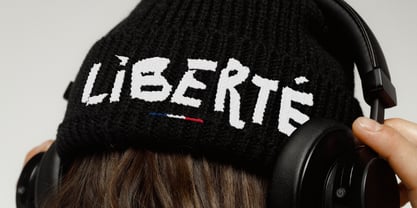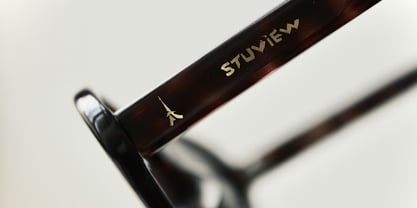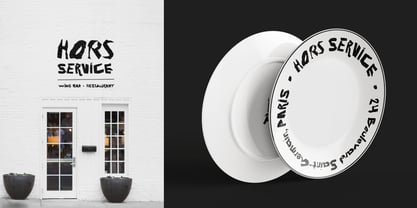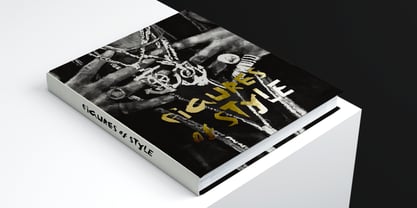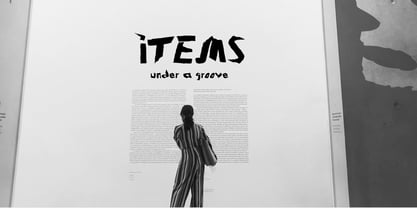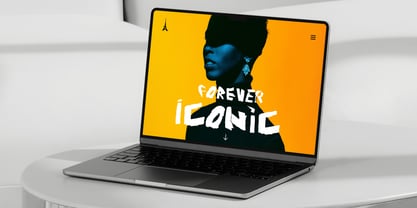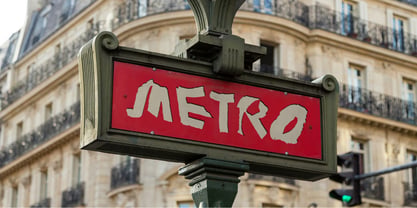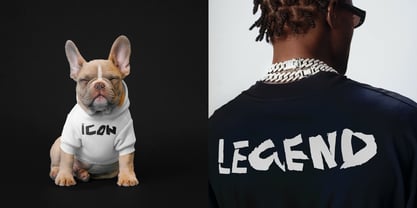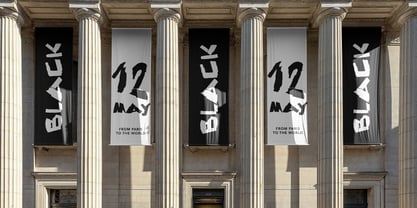
Remix de Paris
Remix de Paris, a bold statement font designed to honor 50 years of hip-hop culture.
Like Hip-Hop, Remix de Paris typeface was born out from sheer grit and determination. Designed using artisanal collage technique, each of the 249 glyphs brings together unexpected elements to form edgy, expressive shapes. With fragments of grunge aesthetics, ripped edges, and raw energy, Remix de Paris is perfect for those seeking a font that captures the essence of self-expression and rebellion.
Made in Paris, with the craftsmanship and attention to details, Remix de Paris offers a full Latin character set, with alternate letterforms for capital letters, giving endless possibilities to make designs stand out.
Whether you’re working on fashion, branding, album art, or any creative project that calls for authenticity and attitude, Remix de Paris lets you make a bold statement. Join us in celebrating hip-hop’s legacy with this one-of-a-kind typeface, made for creators who aren’t afraid to push boundaries.
Remix de Paris includes:
• Uppercase with variations
• Lowercase
• Numbers
• Punctuation
• Multilingual Support